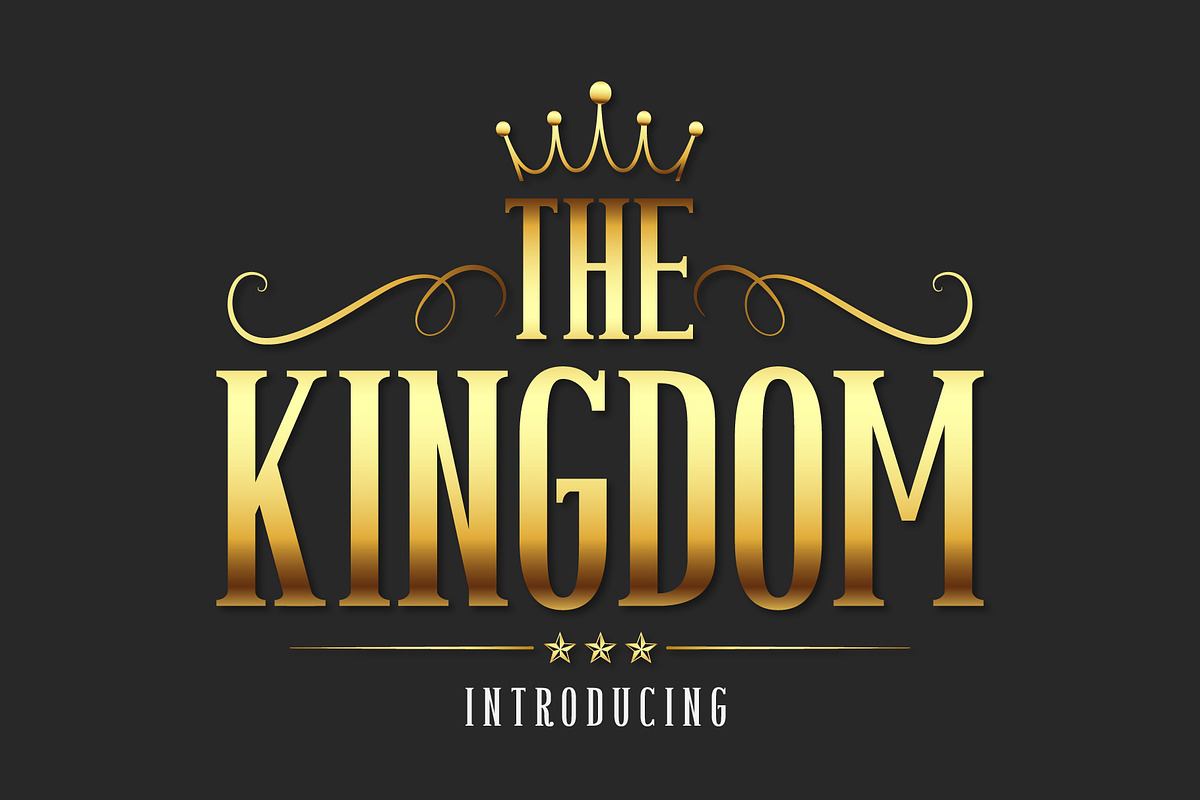
The Kingdom Fonts Free Download
The Kingdom Fonts Free Download is a regal and majestic typeface set inspired by medieval elegance and fantasy aesthetics. Featuring ornate flourishes, dramatic serifs, and classic gothic touches, this font is perfect for book covers, fantasy games, epic movie titles, vintage branding, and any design that needs a sense of nobility and grandeur.
Designed to evoke the power and grace of ancient empires, The Kingdom Fonts Free Download adds a bold, storytelling presence to your creative work. Whether you’re crafting a magical logo or a dramatic headline, this typeface delivers rich character and timeless charm.